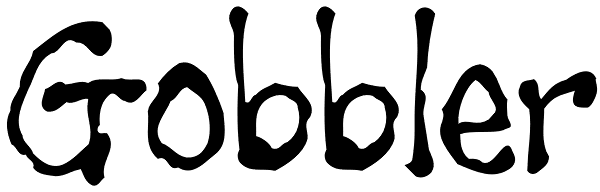
Gobbler
Gobble gobble gobble! The Gobbler font was drawn with a leaky pen on a napkin at the Modern Cafe in Northeast Minneapolis while the designer, Mister Chank Diesel, was waiting for some pot roast. “Apple cobbler drippings on the napkin add more...